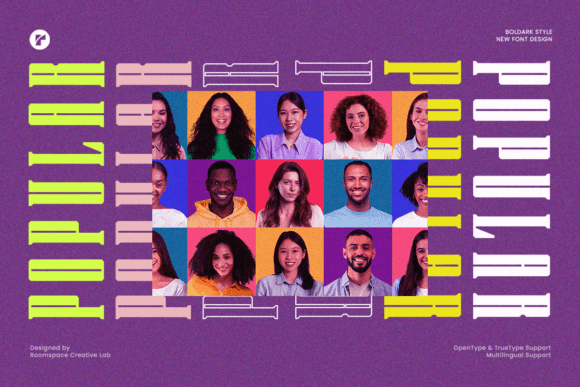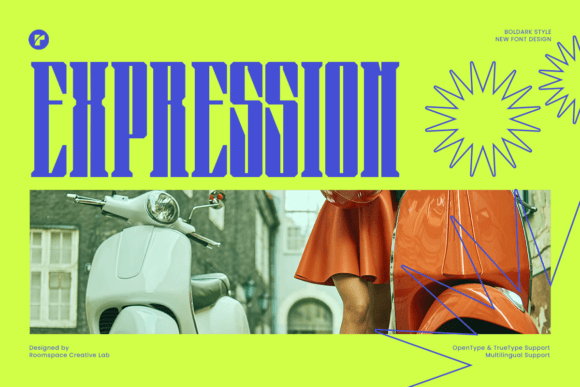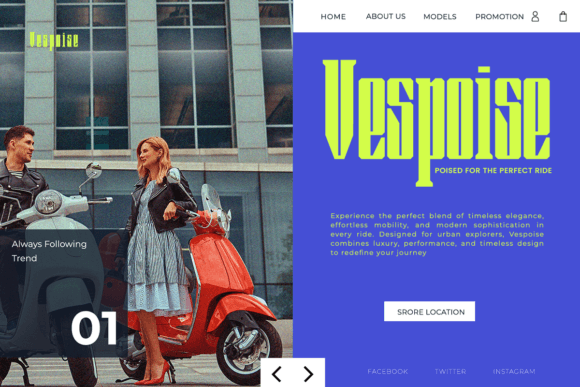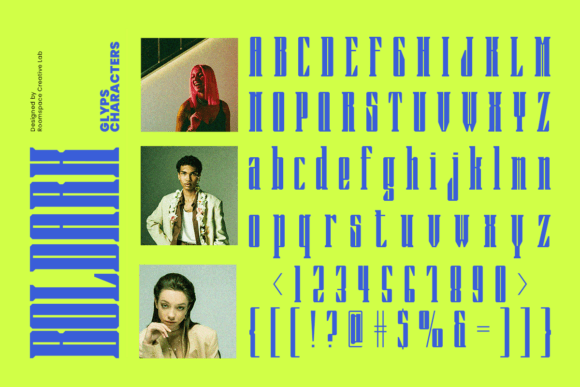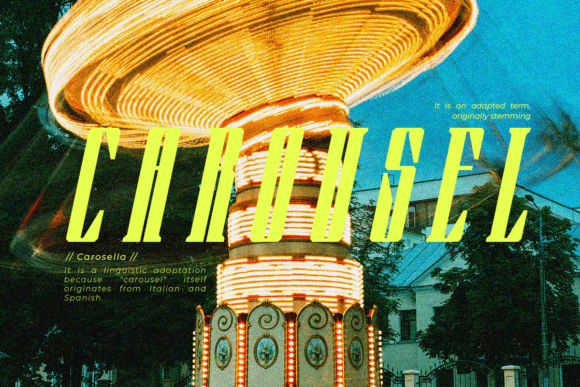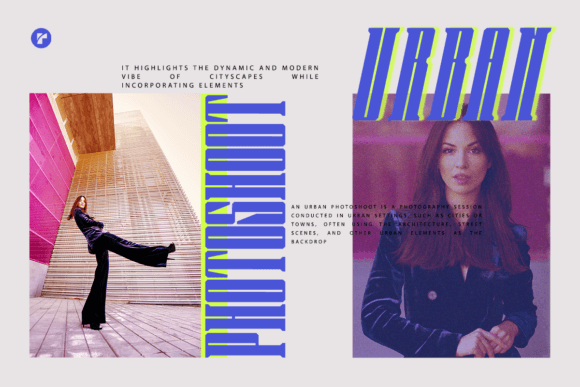
Introducing Boldark Font: The Epitome of Modern Typography
In the world of typography, a well-crafted font can make all the difference in capturing attention and conveying a message effectively. For designers and businesses seeking to create a lasting impression, Boldark Font is an exceptional choice. This meticulously crafted condensed serif typeface is designed to evoke a sense of sophistication and modernity, making it perfect for a wide range of applications.
The Design Philosophy Behind Boldark
Boldark Font boasts bold, confident lines and narrow proportions, expertly blending modern typography with timeless elegance. Its striking design balances readability and creativity, ensuring that your message is conveyed with clarity and impact. The condensed style of Boldark allows for efficient use of space while retaining a bold presence, making it an ideal choice for large-scale projects.
Ideal Applications for Boldark Font
Boldark Font is incredibly versatile and can be used in various contexts, including:
- High-impact headlines: Make a statement with bold, attention-grabbing headlines that demand attention.
- Editorial layouts: Elevate your publication’s typography with a sophisticated and modern serif font.
- Luxury branding: Convey a sense of high-end quality and sophistication with Boldark’s elegant design.
- Advertising campaigns: Cut through the noise with bold, eye-catching typography that captures attention.
- Large-scale projects: Perfect for posters, billboards, and packaging, Boldark’s condensed style ensures your message is conveyed effectively, even at a distance.
Key Features of Boldark Font
So, what sets Boldark Font apart from other typefaces? Here are some key features:
- Condensed style: Efficiently use space while maintaining a bold presence.
- Serif design: Add a touch of elegance and sophistication to your typography.
- Bold lines: Create a lasting impression with confident, attention-grabbing lines.
- Readability: Balance creativity with clarity, ensuring your message is conveyed effectively.
Why Choose Boldark Font?
With so many fonts available, why choose Boldark? Here are just a few reasons:
- Unique design: Stand out from the crowd with a truly distinctive typeface.
- Versatility: Use Boldark in a wide range of applications, from digital media to print.
- Impact: Create a lasting impression with a font that demands attention.
- Elegance: Convey a sense of sophistication and refinement with Boldark’s elegant design.
Boldark Font is an exceptional choice for designers and businesses seeking to create a lasting impression. Its unique blend of modern typography and timeless elegance makes it perfect for a wide range of applications. With its condensed style, bold lines, and serif design, Boldark is the epitome of modern typography. Whether you’re working on a large-scale project or simply want to elevate your typography, Boldark Font is an excellent choice.